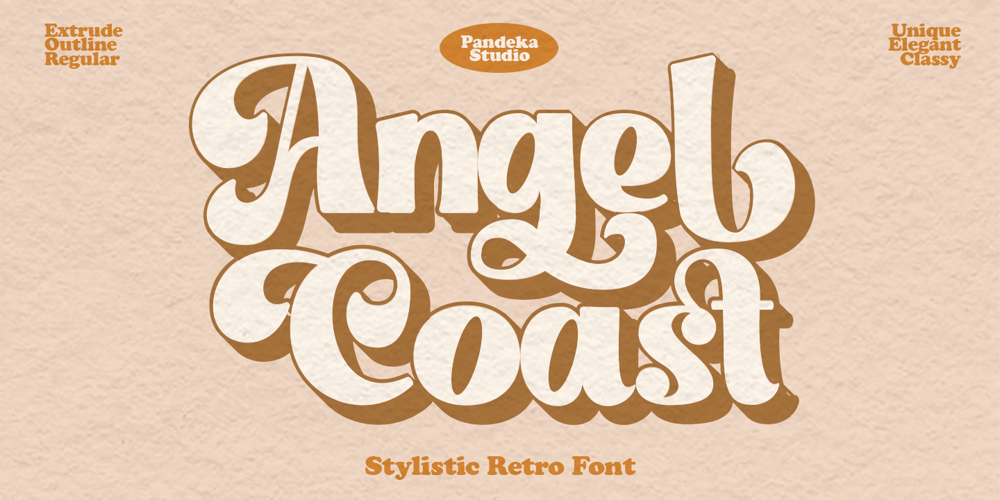
Angel Coast Font Family was designed by Sagara Nararya and published by Pandeka Studio. Angel Coast contains 3 styles and family package options. Say hello to new Decorative Retro Modern, Angel Coast!Angel Coast font is a retro serif and bold display font. You will get three types of fonts in this pack, Regular, Outline and Shadow version. Use this display font to add that special retro touch to any design idea you can think of!Very suitable for logotype, Stickers, Packaging design, Cricut Project, headlines, brand identity, t shirt or apparel industry, posters, magazines, books, YouTube, Instagram, websites, or any of your creative design projects.What’s Included? Angel Coast Main Files Regular, Outline and Shadow version Special Alternates Instructions (Access special characters in all apps, even in Cricut Design) Accessible in Adobe Illustrator, Adobe Photoshop, Microsoft Word even Canva! PUA Encoded Characters. Fully accessible without additional design software Enjoy!Pandeka Studio